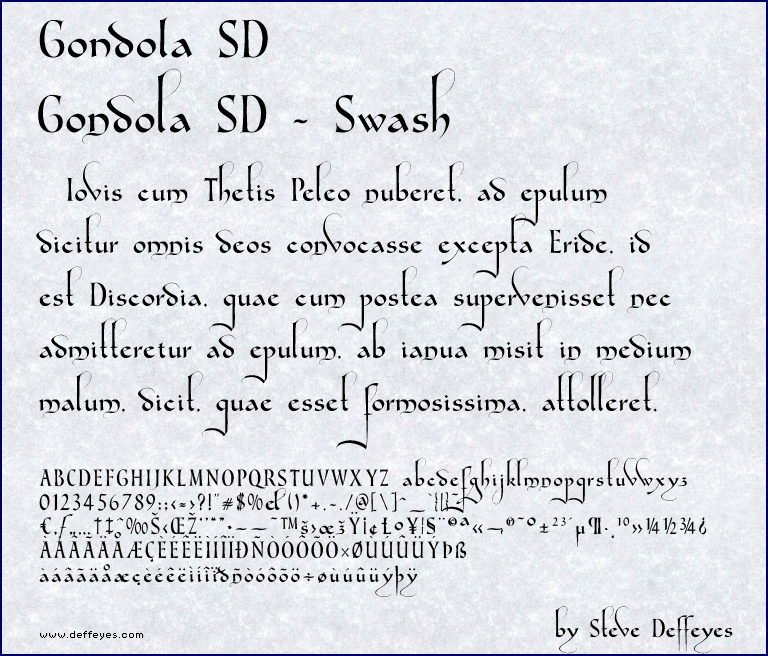
Font name: | Gondola SD |
Author: | Steve Deffeyes |
Note by Steve Deffeyes | |
A sort of early-gothic fancy script. Includes plain and extra-swashy versions. Newly finished in Aug-2009. |